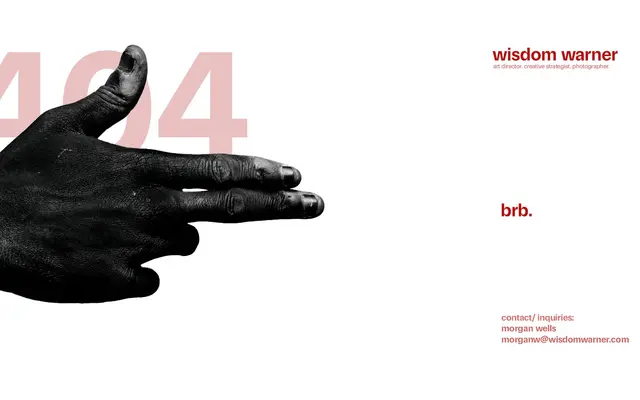
Parabolica
A neo-grotesque built across two optical sizes, drawing on utilitarian screen and display type rather than purely the Swiss tradition.
Developed over ten years with repeated restarts, Parabolica takes the neo-grotesque genre as its base but reaches toward Matthew Carter's CRT Gothic and Video for its core logic: type that holds up in bad conditions. The Text optical size features squared counters, a larger x-height and looser spacing tuned for small sizes, while the Regular optical size is tighter and more curved for display use. Six weights from Hairline to Black, each with obliques, give the family range for both identity work and editorial settings.
Parabolica is explicitly described as a Neo Grotesk, drawing from the Helvetica lineage while also referencing Franklin Gothic and utilitarian display typefaces like Matthew Carter's Video and CRT Gothic. Its stripped-down geometry, large apertures and subtle weight modulation are characteristic of the neo-grotesque genre.